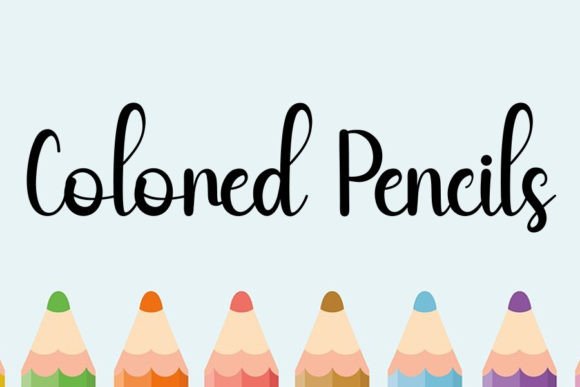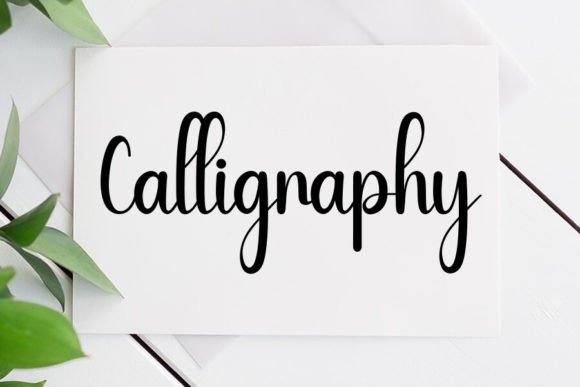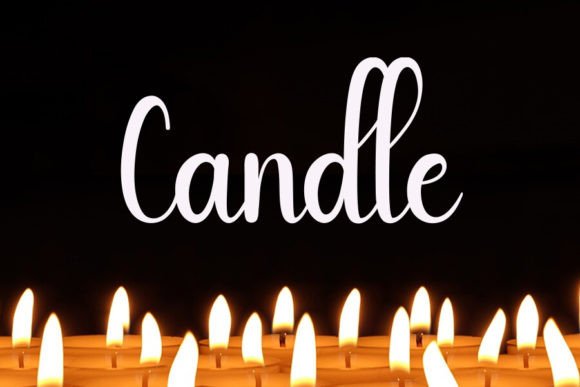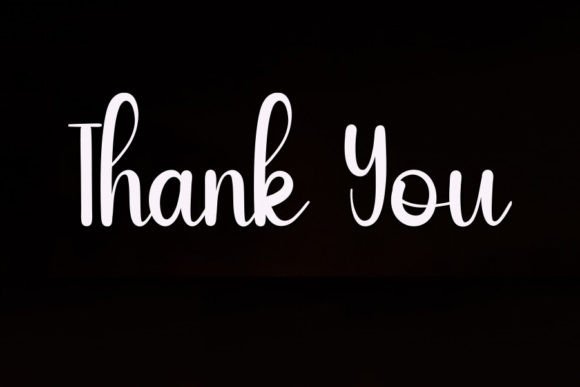
The Magic of Autumn Font: A Designer’s New Best Friend
I’ll never forget the time I was working on a wedding invitation project, and my client asked for a font that was ” elegant, yet playful; romantic, yet modern.” I scoured the internet, tried out dozens of fonts, but nothing seemed to fit the bill. That was until I stumbled upon Autumn Font. This sweet and cursive handwritten font has been a game-changer for me, and I’m excited to share its magic with you! ✨
- ✨ Elegant yet casual: Autumn Font strikes the perfect balance between sophistication and playfulness, making it suitable for a wide range of design projects.
- ✅ Versatile: From branding and logos to wedding materials and greeting cards, this font adapts seamlessly to different design ideas.
- 💕 Romantic touch: The cursive script and gentle feel of Autumn Font add a touch of romance to any design, perfect for projects that require a bit of whimsy.
- 🤔 Limited use in body text: While Autumn Font is stunning in headings and titles, it might not be the best choice for lengthy body text due to its cursive nature.
- ⚠️ Kerning issues on certain platforms: Some users have reported kerning issues when using Autumn Font on specific platforms or software. However, these issues can usually be resolved with a bit of manual adjustment.
- Experiment with OpenType features, such as ligatures and stylistic alternates, to add more flair to your design.
- Explore the Glyphs panel to access alternative characters, ligatures, and stylistic sets.
The Story Behind Autumn Font: Designer Inspiration
Autumn Font was designed with the intention of capturing the essence of a warm, autumnal breeze. The designer aimed to create a font that would evoke feelings of coziness, comfort, and romance. The result is a font that’s both elegant and playful, perfect for a wide range of design projects.
Q: What type of projects is Autumn Font best suited for?
A: Autumn Font is versatile and can be used for various projects, including branding, logos, wedding materials, greeting cards, fashion, and marketing promotions.
Q: Is Autumn Font suitable for body text?
A: While Autumn Font is stunning in headings and titles, it might not be the best choice for lengthy body text due to its cursive nature.